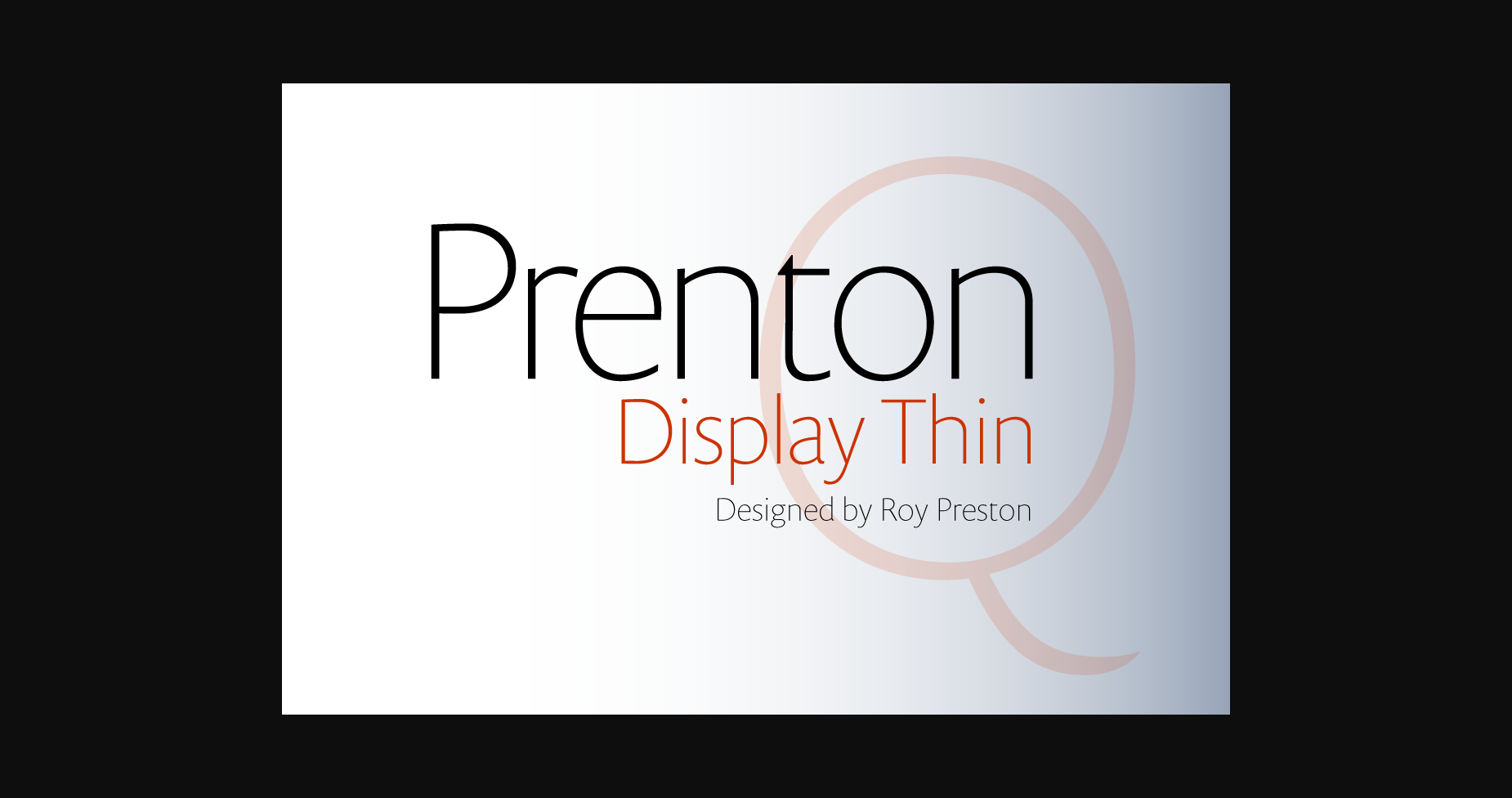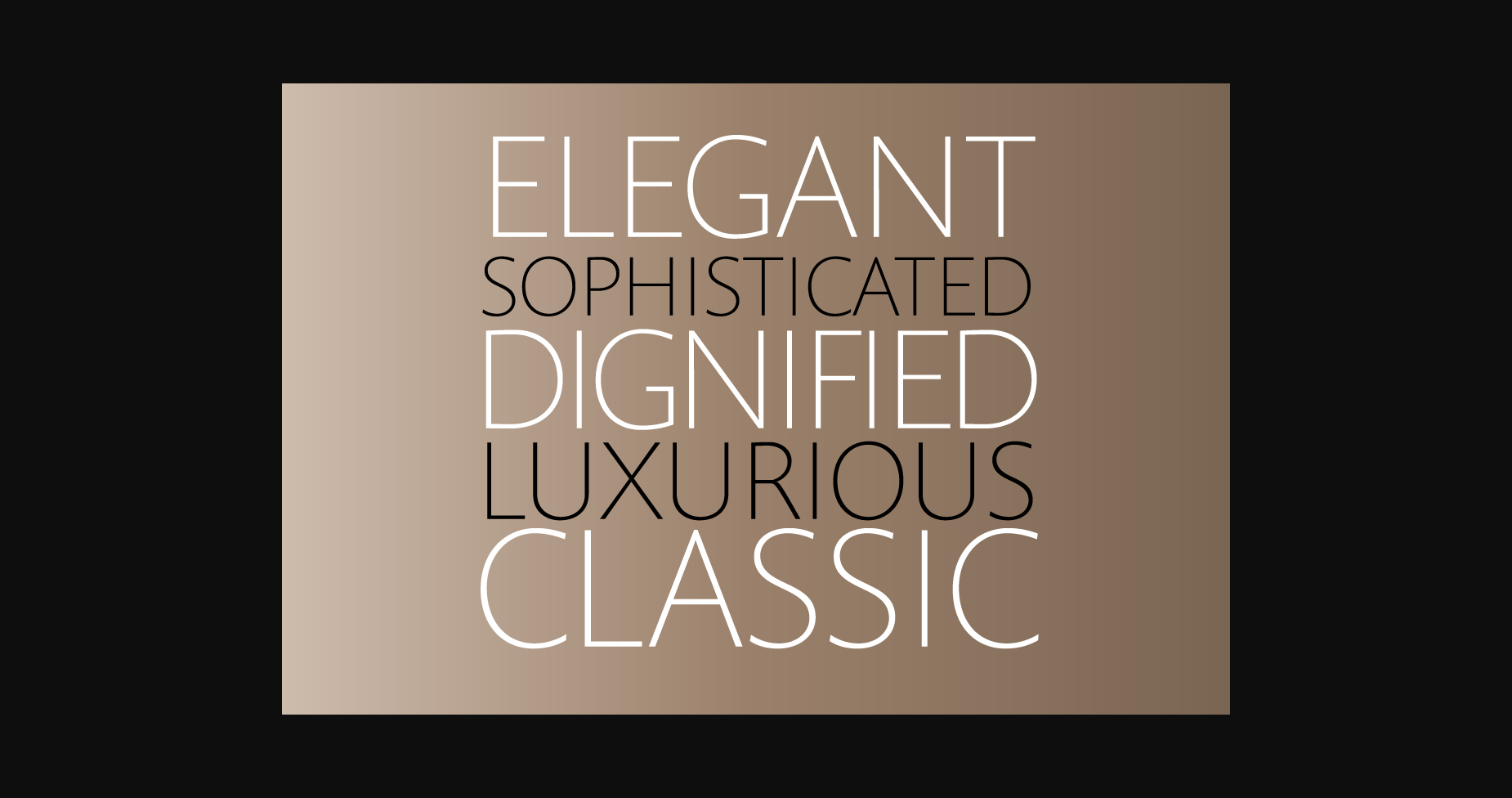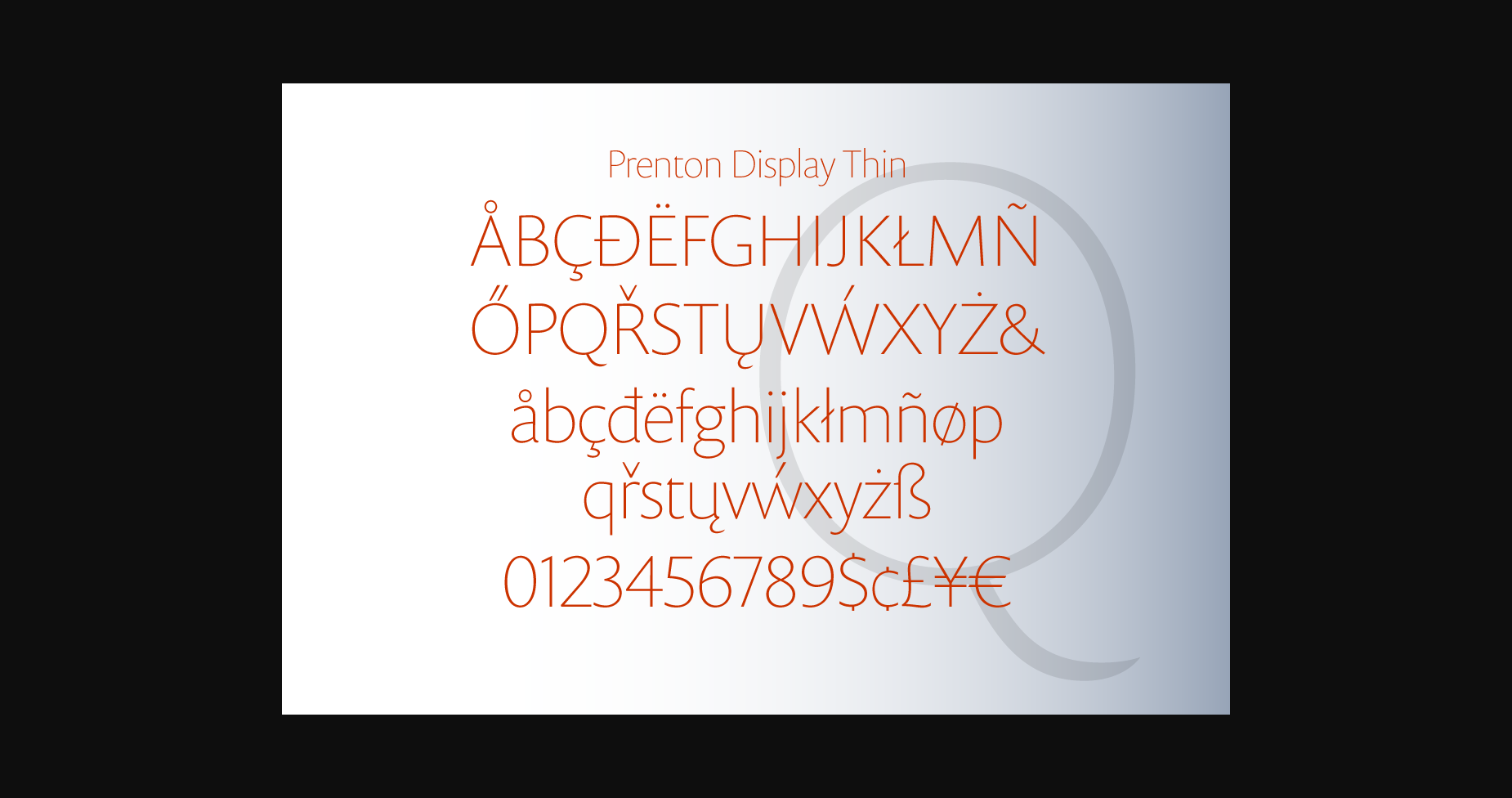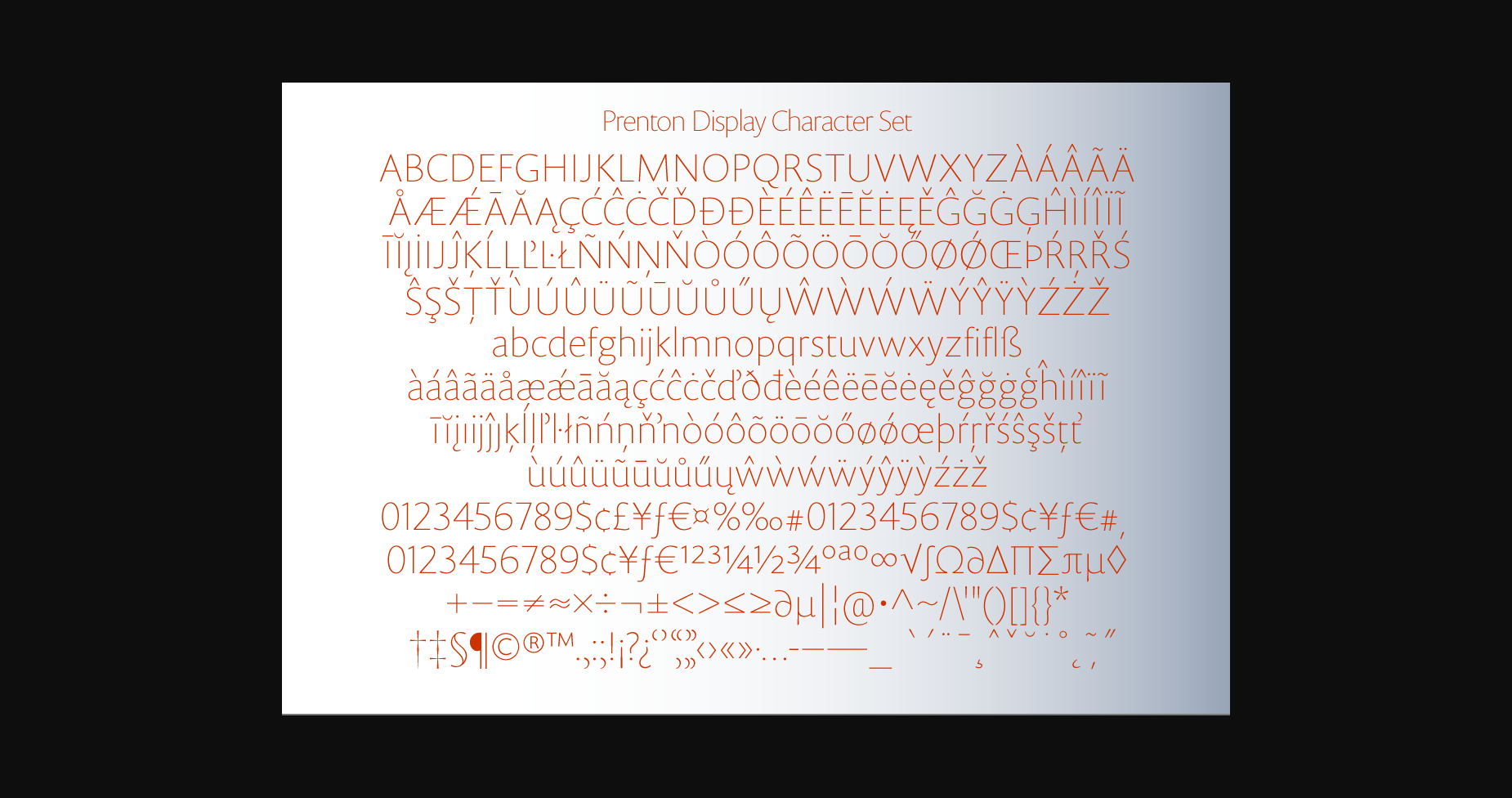
HomeSans Serif FontsPrenton Display Thin Font Sans Serif Fonts Prenton Display Thin Font FacebookXPinterestWhatsApp 1 of 6 ... Prenton Display Thin Font Poster 2... Prenton Display Thin Font Poster 3... Prenton Display Thin Font Poster 4... Prenton Display Thin Font Poster 5... Prenton Display Thin Font Poster 6... About Prenton Display Thin Font Prenton is a thin lettered and modern sans serif font. Suitable to a wide variety of designs due to its neat and simple style, this font has the potential to become your favorite go-to font, no matter the occasion! DOWNLOAD NOW People also explored Alina Monogram Font Font Brilliant Font Hello Valentine Font Holiday Family Font Gastank Font ABTS Day of the Dead Symbols Ealifise Font Farmhouse Too Font Dan Pro 465 0 TagsPrenton Display Thin Font Previous articleQartella FontNext articleVisia Font LEAVE A REPLY Cancel reply Comment: Please enter your comment! Name:* Please enter your name here Email:* You have entered an incorrect email address! Please enter your email address here Website: Save my name, email, and website in this browser for the next time I comment. Personal Use Free Adeline Personal Use Free Read more about this font Jurnal Personal Use Free Read more about this font The Fourth Avenue Personal Use Free Read more about this font ABC Personal Use Free Read more about this font BLOG How to Cut Any Font on Cricut: Convert a Font to SVG (Free) Turn any font into a clean SVG so it cuts crisp on Cricut - a quick 3-step workflow using a free font-to-SVG tool. The 10 Best Handwriting Fonts to Add Personality to Your Designs Where to Buy American Fonts Online in 2024 Top 10 Handwritten Fonts That Elevate Your Designs